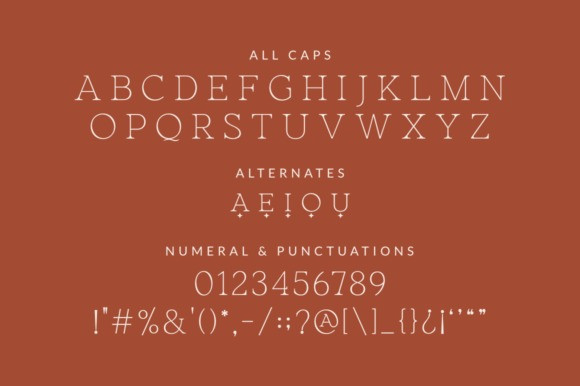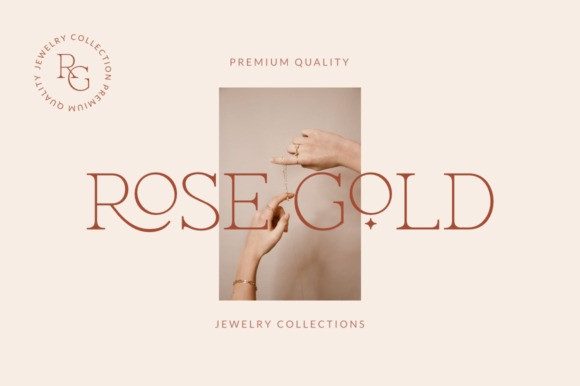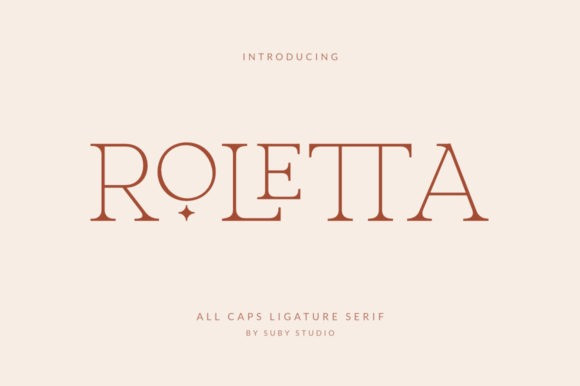
Roletta Font
Roletta Serif Font is an elegant and classy serif font. Simple and easy to use, this font will be very beautiful if you mix it with your various craft designs.